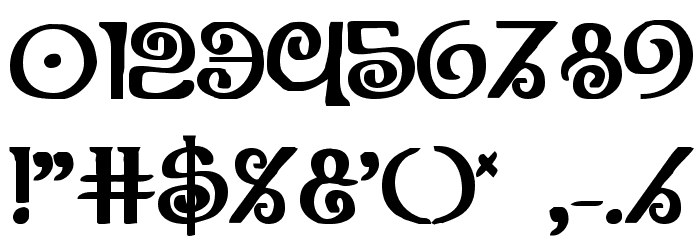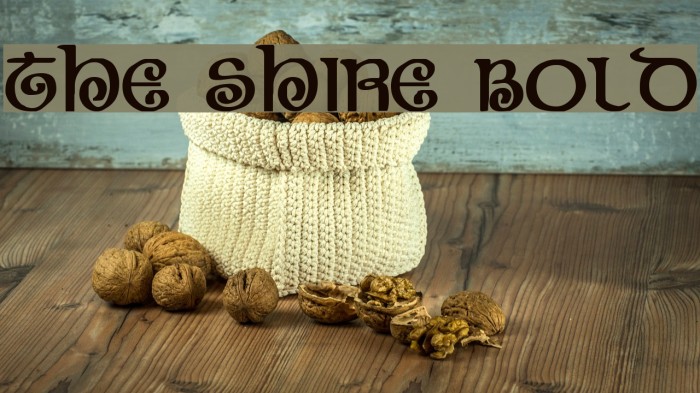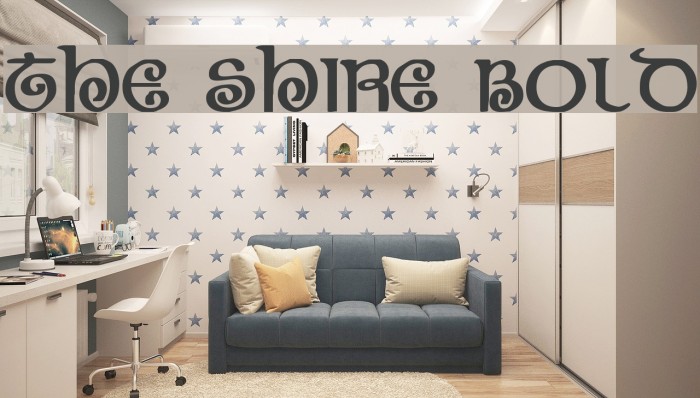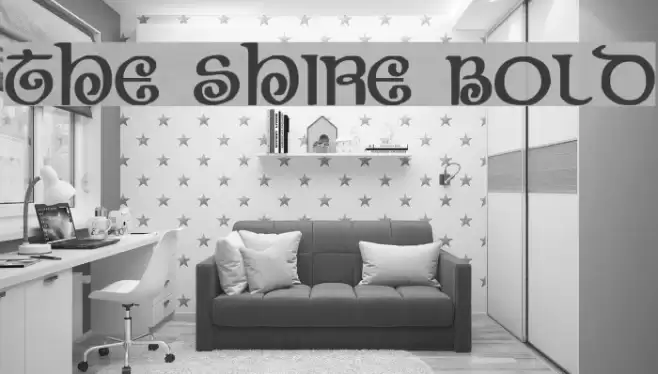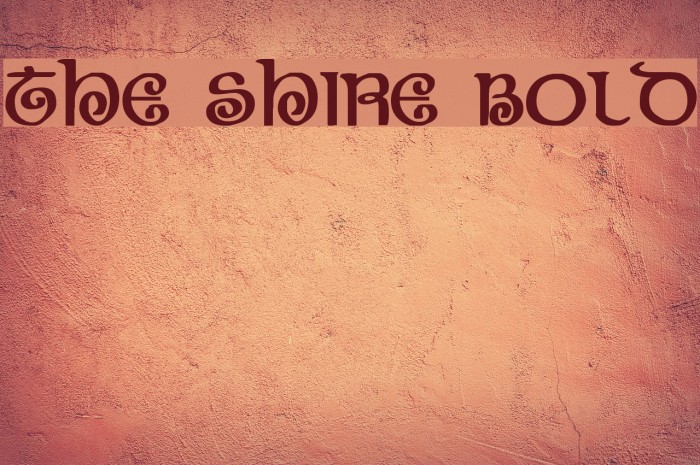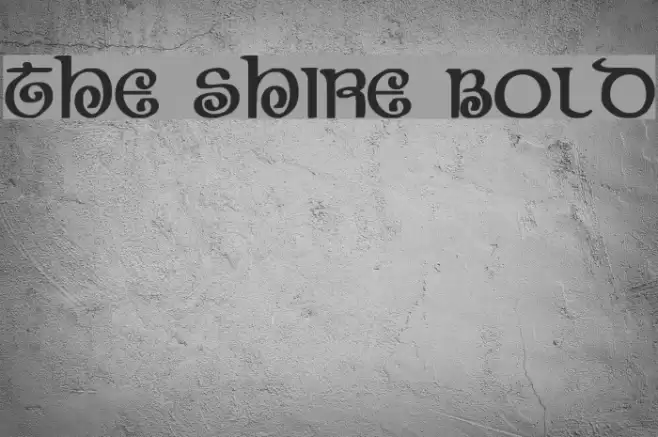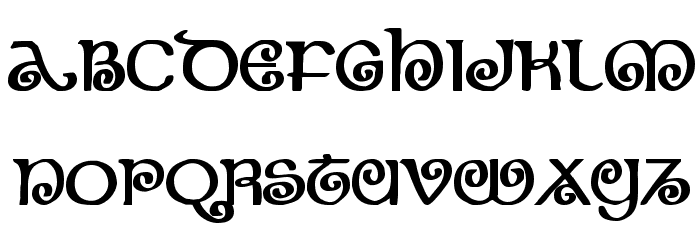
The Shire Bold Font
This font features a whimsical and decorative style, characterized by its bold and playful curves. Each letter is adorned with unique flourishes and swirls, giving it a fantasy-like appearance. The uppercase and lowercase letters maintain a consistent theme, with intricate details that add to its charm. The numbers and special characters are equally ornate, making the font suitable for creative and imaginative projects. Its bold weight and high contrast between thick and thin strokes enhance its visual impact, making it stand out in any design.
A bold, decorative font with whimsical curves and fantasy-like flourishes.
• Proposed Projects: Ideal for fantasy-themed designs, book covers, posters, and creative branding.
• Category: Decorative/Display
• Contrast: High
• Overall Style: Decorative
• Use Case: Headlines, Logos